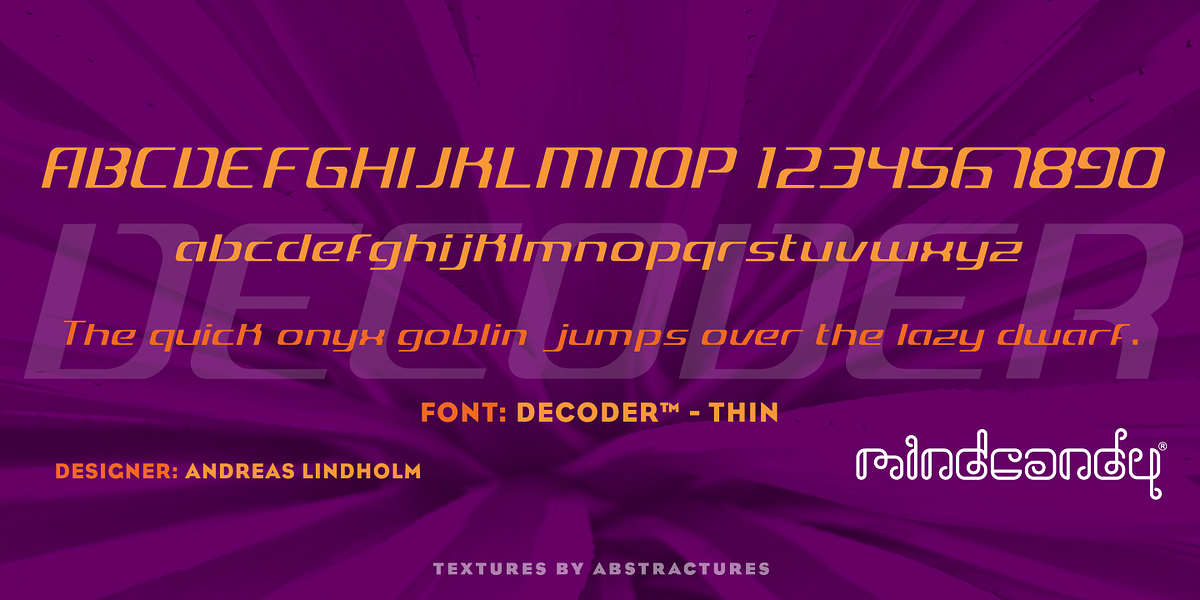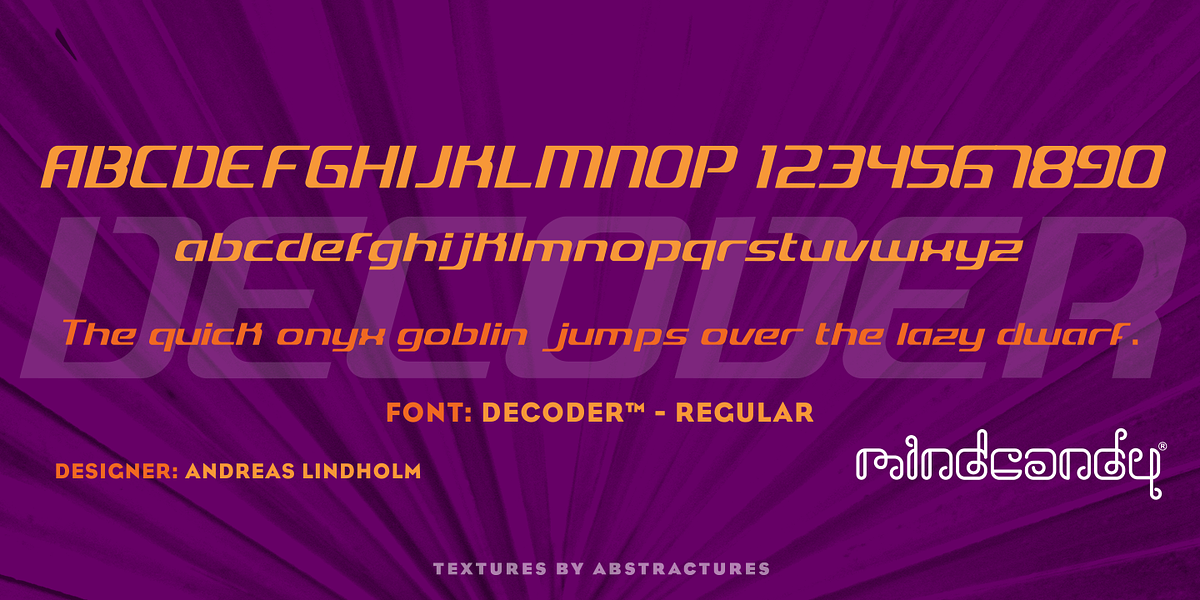
Decoder™
This geometric display sans serif font features a futuristic aesthetic with its square shapes and high contrast. Designed by Andreas Lindholm, it is ideal for headlines, branding, and other display text applications.